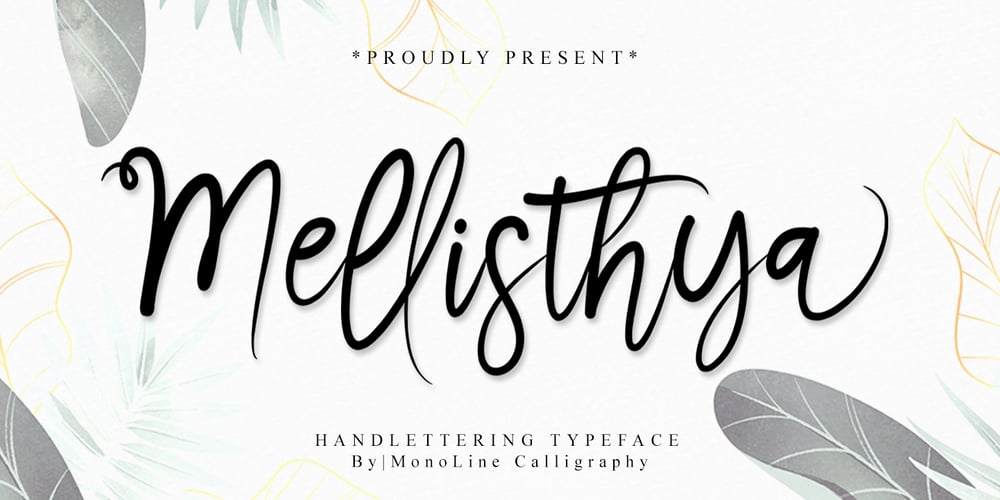
Mellisthya Font Family was designed by Putri Indira and published by MonoLIne Calligraphy. Mellisthya contains 1 styles and family package options. Mellisthya is interesting because the typeface is pleasing to the eye, clean, feminine, sensual, glamorous, simple and very easy to read, because there are many fancy letter connections. I also offer a number of decent stylistic alternatives for multiple letters. Classic styles are very suitable to be applied in various formal forms such as invitations, labels, restaurant menus, logos, fashion, make up, stationery, novels, magazines, books, greeting / wedding cards, packaging, labels or all kinds of advertising purposes. . .Mellisthya has alternative characters, including support for multiple languages. With OpenType features with an alternative style and elegant binding. The OpenType feature does not work automatically, but you can access it manually and for the best results required for your creativity in combining these Glyph / Character variations.Font Features :* Lowercase beginning and ending swash* Uppercase beginning swash* Initials* Intenational LanguageI heavily use programs that support OpenType features and the Glyphs panel such as Adobe Illustrator, Adobe Photoshop CC, Adobe InDesign, or CorelDraw, so that you can view and access all the variations of the Glyph.Mellisthya Font is coded with Unicode PUA, which allows full access to all additional characters without having any special design software. Mac users Mac users, and Windows users can use Character Map to view and copy any of the additional characters to paste into your favorite editor / application.